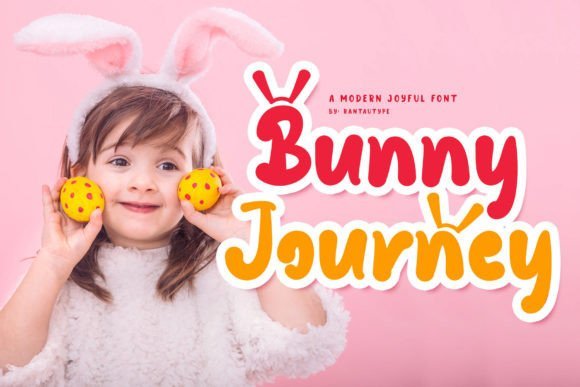
Step into a Whimsical World with the Bunny Journey Font
Do you ever get that spark of creativity when browsing through a vintage toy store or flipping through a beloved children’s book from your childhood? For many designers, this spark often translates into a desire to create something truly special for young audiences. As we strive to craft engaging and immersive experiences for kids, the right typography can be the key to unlocking their imagination.
Enter the Bunny Journey Font, a delightful display font designed specifically with children in mind. This playful typeface is perfect for logos, packaging designs, posters, books, and more – anything that requires a touch of whimsy and fun. The Bunny Journey Font is a valuable addition to any designer’s toolkit, offering a unique way to connect with young viewers and bring their stories to life.
Bunny Journey Font Key Features
- Size: The font family consists of 6 weights, ranging from Extra Light to Extra Bold, providing flexibility for various design applications.
- Unique Characteristics: The Bunny Journey Font features a playful, hand-drawn style with subtle texture and imperfections, giving it a warm and inviting feel.
- Scalability: The font is designed to be highly scalable, allowing it to be used effectively in a wide range of font sizes and applications, from body text to display headings.
Bunny Journey Font Review
As a designer, I was excited to dive into the Bunny Journey Font, a whimsical and playful typeface designed to capture the essence of a magical journey. Here’s my honest review:
- The font’s unique character set, which includes a wide range of animal and nature-inspired icons, is a standout feature. It adds a delightful touch to any design project.
- The font’s lines are smooth and well-crafted, making it easy to read even at smaller sizes.
- The font’s whimsical feel is perfect for projects that require a sense of wonder and adventure.
- The font’s limited language support may be a concern for designers who need to work with non-Latin scripts.
- The font’s weight range is relatively limited, which may not be suitable for projects that require a wide range of font weights.
- The font’s unique character set, while charming, may not be suitable for all types of projects, particularly those that require a more formal tone.
Overall, the Bunny Journey Font is a delightful and unique typeface that’s perfect for projects that require a touch of whimsy and adventure. While it may have some limitations, its strengths far outweigh its weaknesses, making it a great addition to any designer’s toolkit.
The Bunny Journey Font is ideal for whimsical and playful designs, such as children’s books, party invitations, and social media graphics.
For optimal use, pair the font with pastel colors and playful illustrations.